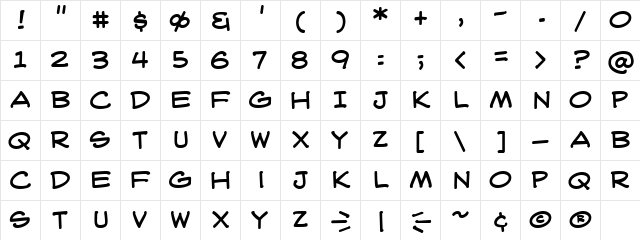
WebLetterer BB Regular
Design Context for WebLetterer BB Typeface
WebLetterer BB is a composed and adaptable typeface that performs quietly and consistently across a wide range of design contexts.